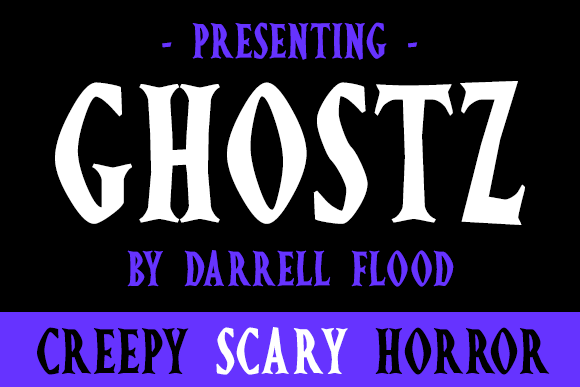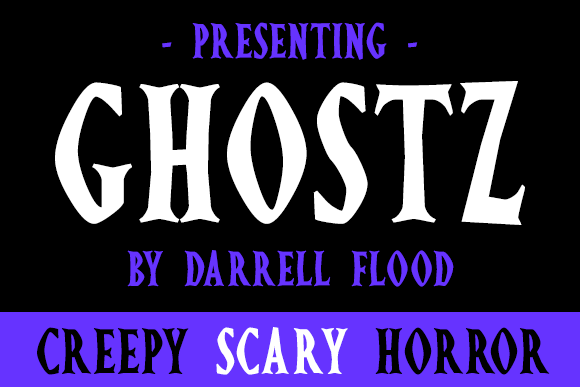
Ghostz Font
Ghostz is a creepy, horror font in a tall, archaic style. This display font is perfect for Halloween and other scary themes!Font created by Darrell Flood.